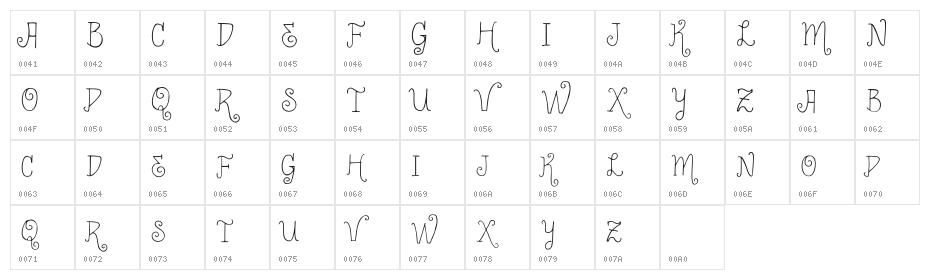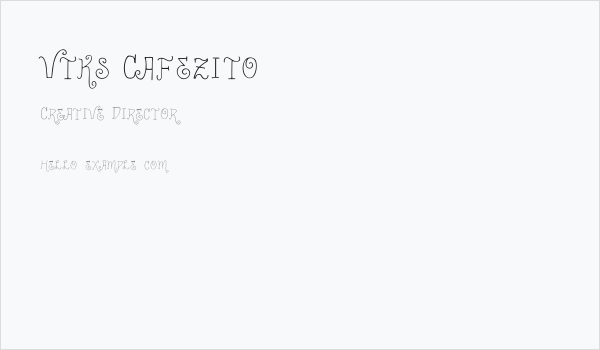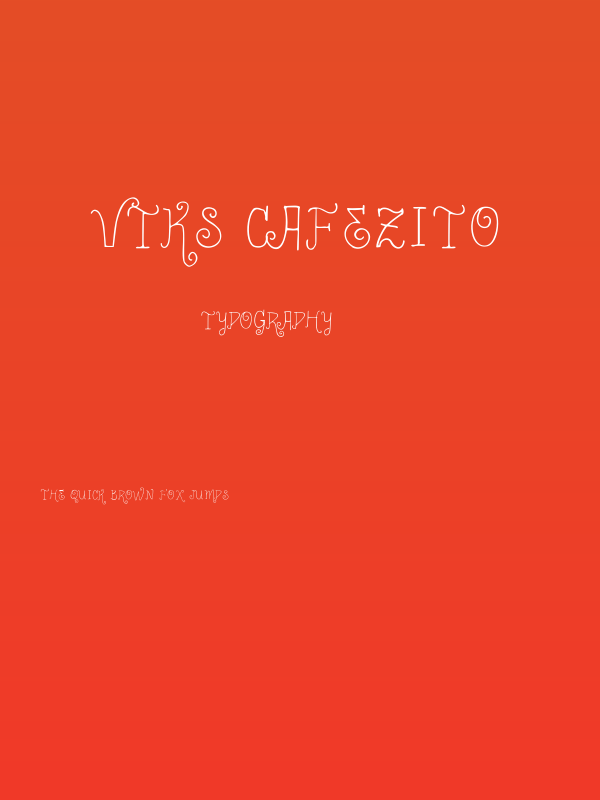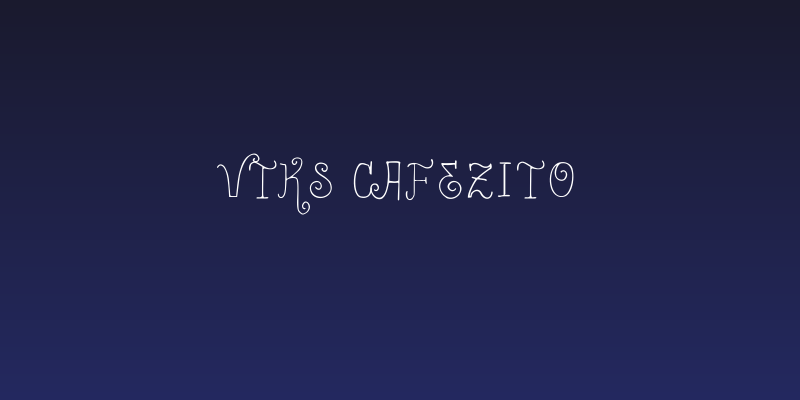
Vtks Cafezito Font
Vtks Cafezito Description
This font features a whimsical and playful design with curly, decorative elements extending from the ends of each letter. The characters are crafted with a consistent stroke width, giving them a uniform appearance. The uppercase letters exhibit a unique flair with loops and swirls, adding a touch of elegance and creativity. The lowercase letters maintain the same playful style, ensuring cohesion throughout the text. Numbers and special characters are designed to match the overall aesthetic, making this font suitable for projects that require a fun and artistic touch.
| Overall Style | Playful, Whimsical, Decorative |
| Proposed Projects | Ideal for children's books, greeting cards, playful branding, and creative invitations. |